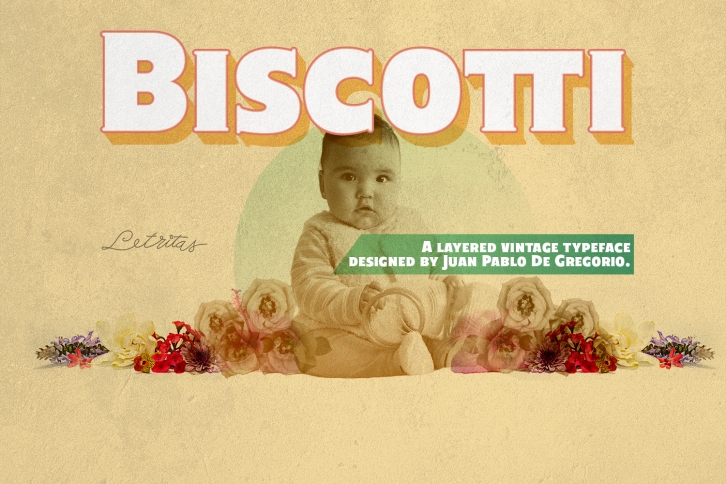
Biscotti is a great font that was designed by Letritas. Imagine the amount of combinations you can create using this font! The archive is 15.11 MB and it was released on February 17, 2018. Biscotti looks beautiful on wedding invitations, greeting cards, logos, posters, labels, t-shirt designs, logos, business cards and is perfect for use in ink or watercolor works, fashion, magazines, packaging and food menus, children's books and more!